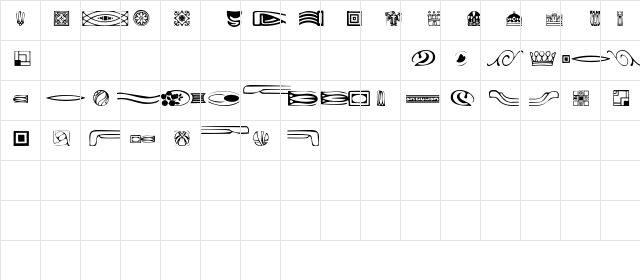
Complete JournalDingbatsSixSSK Regular glyph index. Displaying only characters natively supported by JournalDingbatsSixSSK Regular font.
JournalDingbatsSixSSK is a composed and adaptable typeface that performs quietly and consistently across a wide range of design contexts.